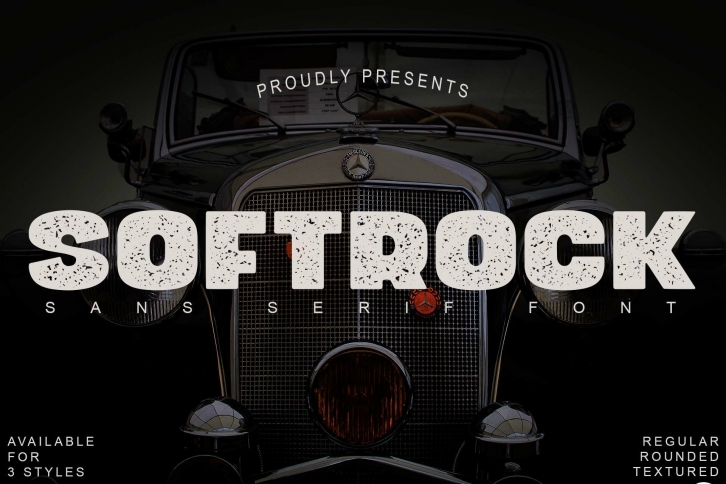
Softrock is a beautiful font that was designed by Mas Fik. It's a great choice for designers and creatives who need such a font. It was released on July 24, 2021 and the file size is 10.81 MB. Softrock may give a more youthful, expressive and casual look to your project. It is a very beautiful, refined, elegant, and high-quality font.